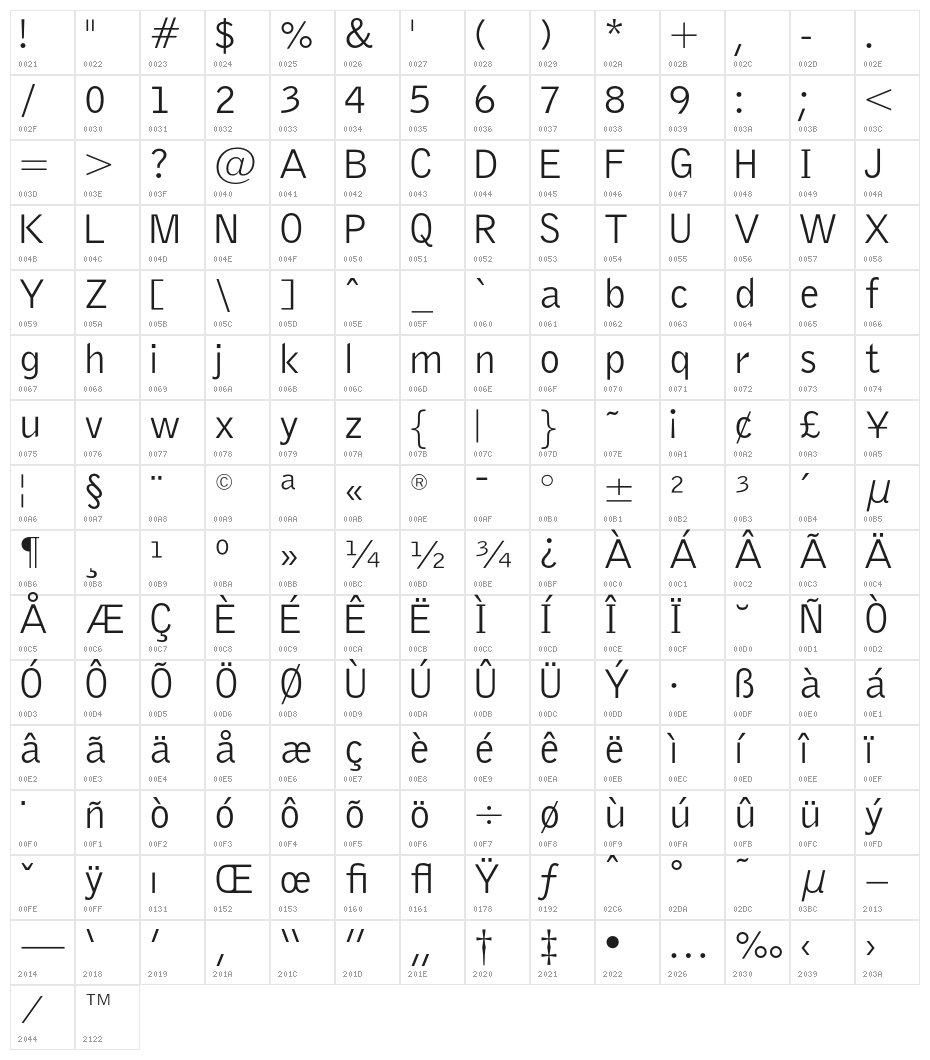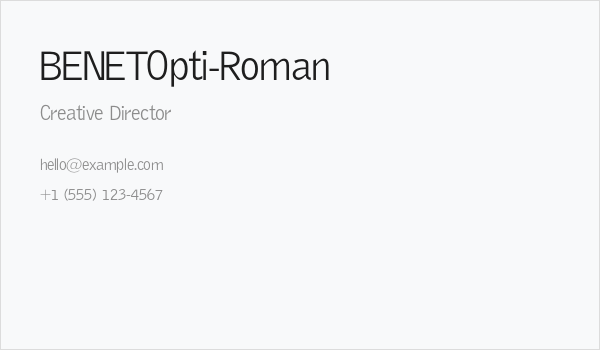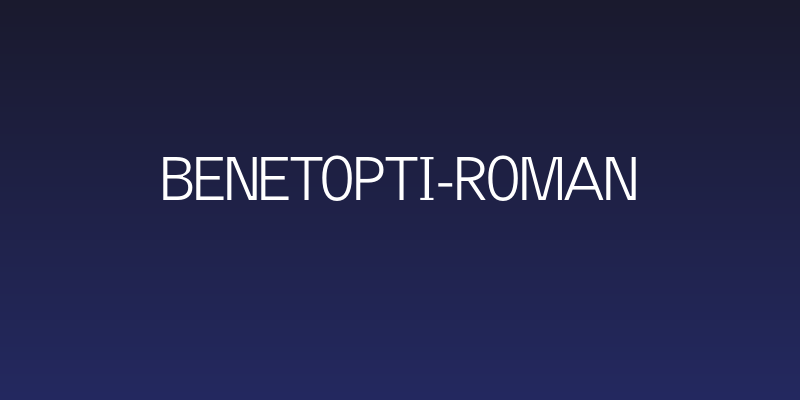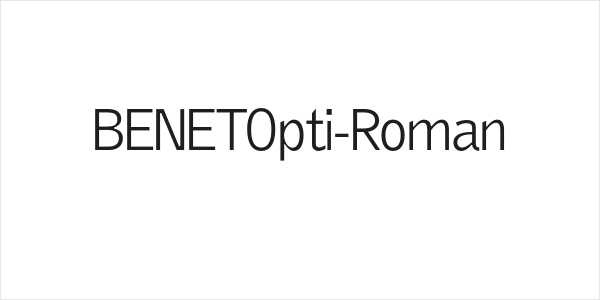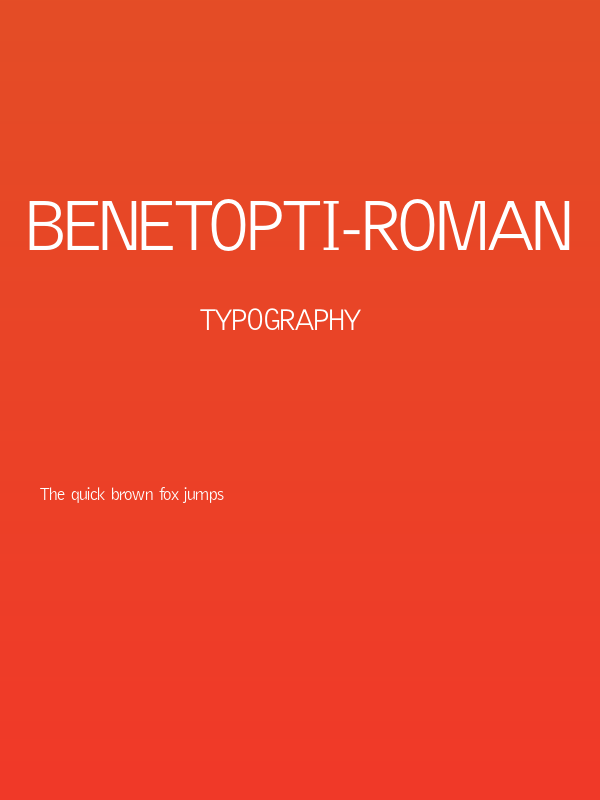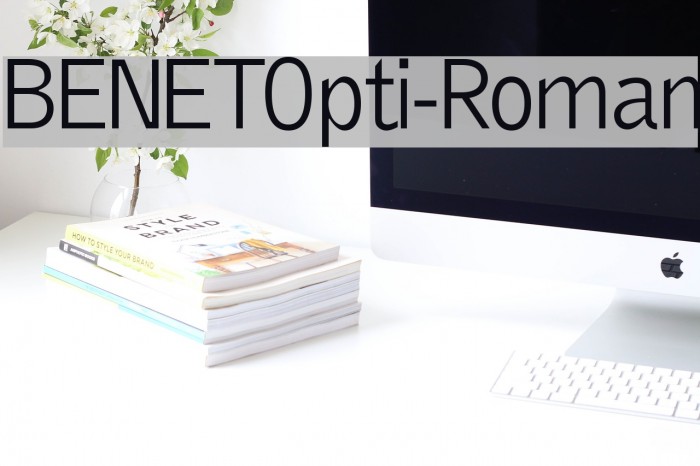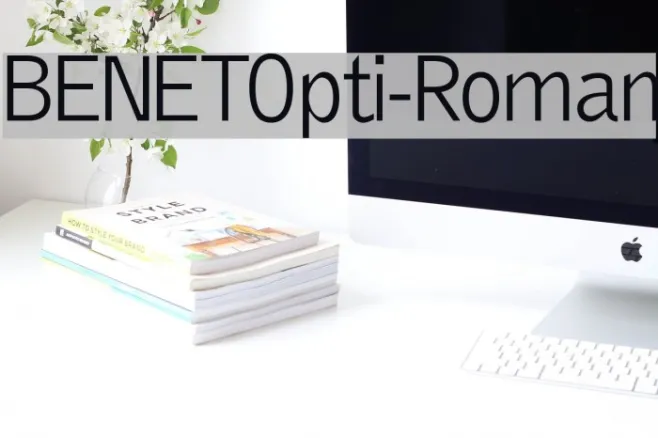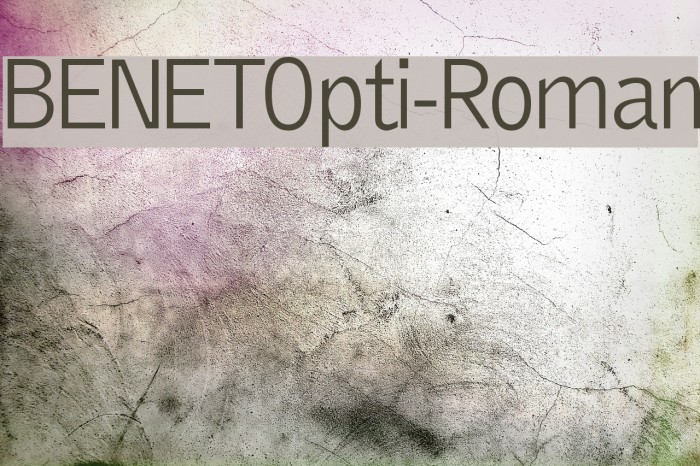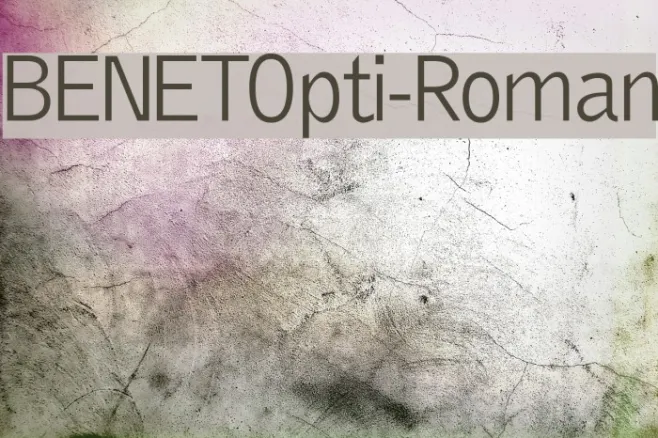
BENETOpti-Roman Font
BENETOpti-Roman Description
This typeface presents a clean and modern aesthetic with a focus on readability and simplicity. The characters are well-proportioned, featuring a uniform stroke width that contributes to its contemporary look. The uppercase letters are bold and assertive, while the lowercase letters maintain a balanced and approachable feel. The numerals are clear and distinct, making them suitable for various applications. Special characters are included, offering versatility for different design needs. Overall, this font is designed to be functional and stylish, making it a great choice for both digital and print media.